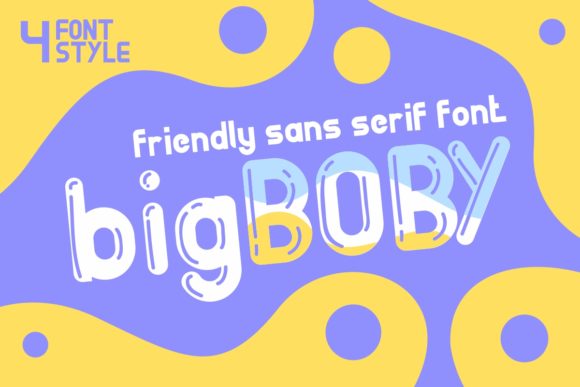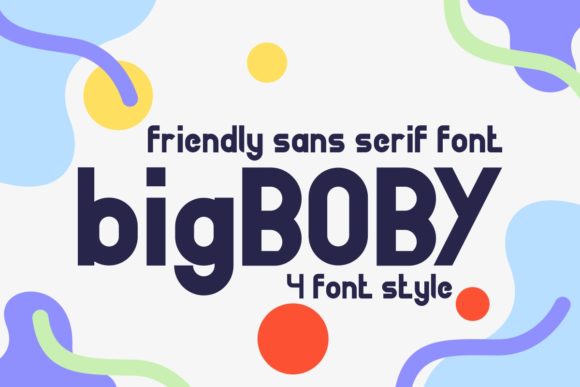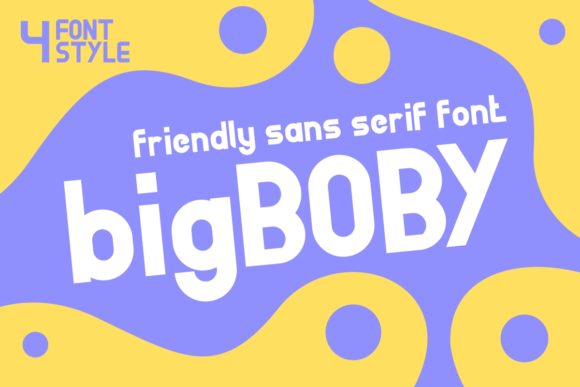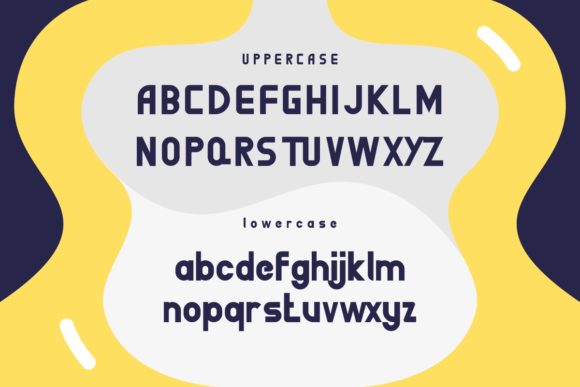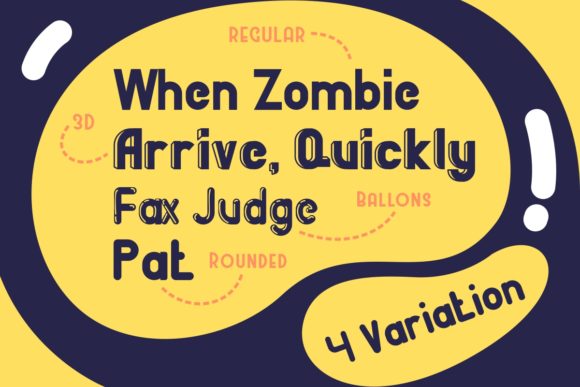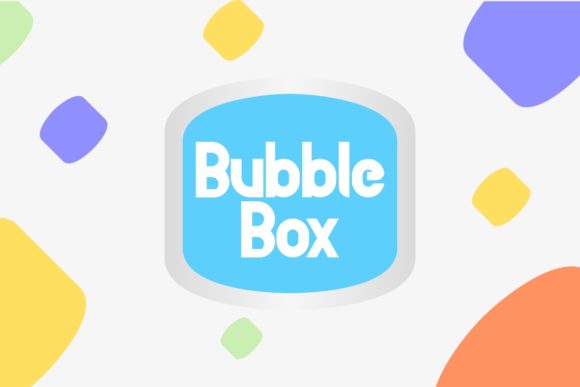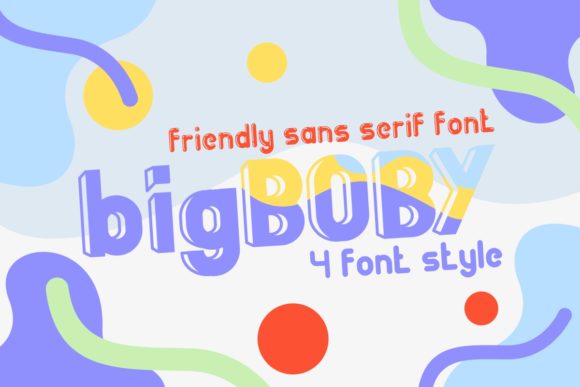
Introducing Big Boby Font: The Ultimate Modern Sans Serif for Fun and Stylish Designs
Are you tired of using the same old fonts in your designs? Look no further! Big Boby Font is here to revolutionize your typography with its fresh, elegant, fun, and stylish feel. This new modern sans serif font is inspired by comic fun styles, making it perfect for designers and crafters who want to add a touch of playfulness to their work.
What Makes Big Boby Font Special?
Big Boby Font is not just another font; it’s an experience. Its unique blend of modern sans serif and comic fun styles makes it stand out from the crowd. The font has a youthful and energetic vibe, making it ideal for designs that require a dash of humor and whimsy. Whether you’re working on a children’s book, a comic strip, or a fun advertisement, Big Boby Font is sure to bring your ideas to life.
Key Features of Big Boby Font
- Modern Sans Serif: Big Boby Font boasts a clean and minimalist design, making it perfect for modern designs that require a touch of sophistication.
- Comic Fun Style: The font’s comic fun style inspiration adds a playful and humorous touch to your designs, making them more engaging and entertaining.
- Fresh and Elegant: Big Boby Font’s unique design makes it both fresh and elegant, allowing you to create designs that are both stylish and fun.
- Stylish Feel: The font’s stylish feel makes it perfect for designs that require a touch of glamour and sophistication.
Use Cases for Big Boby Font
Big Boby Font is versatile and can be used in a variety of design projects, including:
- Children’s Books: The font’s playful and fun style makes it perfect for children’s books, comics, and educational materials.
- Comic Strips and Cartoons: Big Boby Font’s comic fun style inspiration makes it an excellent choice for comic strips, cartoons, and animated movies.
- Advertisements: The font’s fresh and stylish feel makes it perfect for advertisements that require a touch of humor and whimsy.
- Branding and Packaging: Big Boby Font can be used for branding and packaging designs that require a modern and fun twist.
Why Choose Big Boby Font?
With so many fonts available, why choose Big Boby Font? Here are a few reasons:
- Unique Design: Big Boby Font has a unique design that sets it apart from other fonts.
- Versatility: The font is versatile and can be used in a variety of design projects.
- Easy to Read: Big Boby Font is easy to read, making it perfect for body text and headings.
- High-Quality: The font is of high quality, ensuring that your designs look professional and polished.
In conclusion, Big Boby Font is an excellent choice for designers and crafters who want to add a touch of fun and whimsy to their designs. Its unique blend of modern sans serif and comic fun styles makes it perfect for a variety of design projects. With its fresh, elegant, fun, and stylish feel, Big Boby Font is sure to take your designs to the next level.